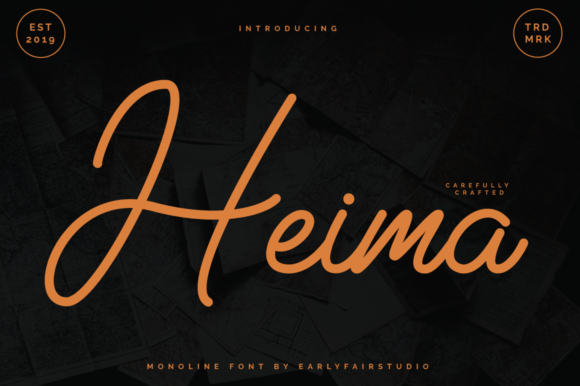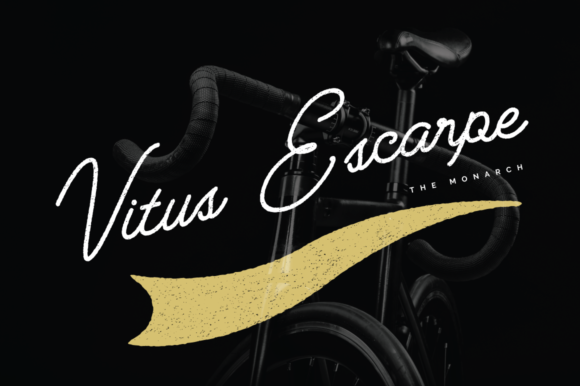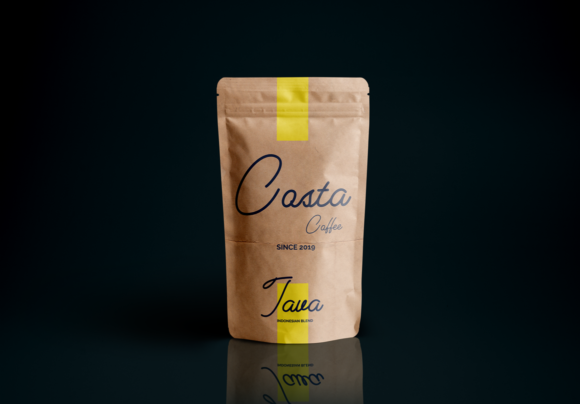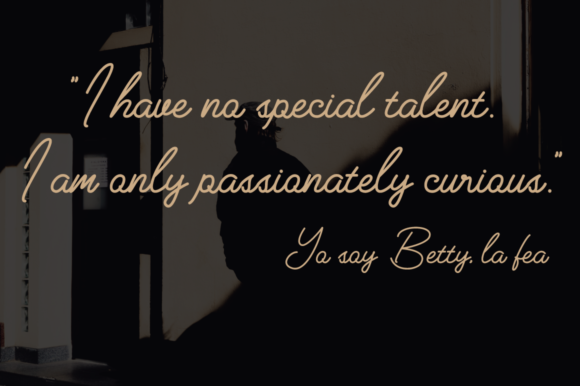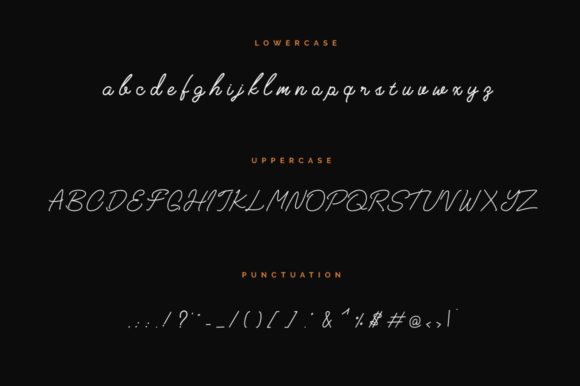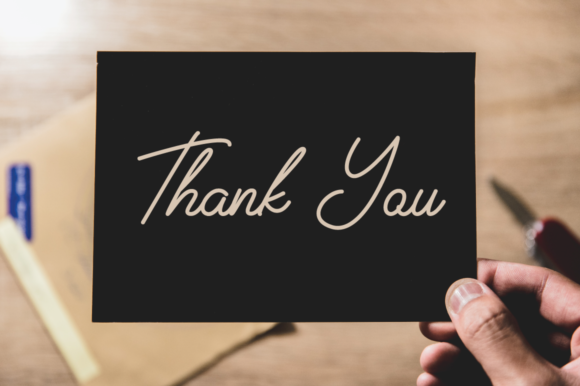
HomeScript FontsHeima Font Script Fonts Heima Font FacebookXPinterestWhatsApp Heima Font Poster 2 Heima Font Poster 3 Heima Font Poster 4 Heima Font Poster 5 Heima Font Poster 6 About Heima Font Heima is a sweet and simple handwritten font with a cool charm. Get inspired by its unique charm! DOWNLOAD ON CREATIVE FABRICAThis font is sold and delivered by Creative Fabrica. Font Canyon may earn a commission if you buy through this link. People also explored Texas Professional Font Sinandaka Font Fahrenheit Signature Font Nano Font Dreams Font Maple Crisp Font Jolly Yellows Font Sketchy Font Natural Beauty Font 339 0 TagsHeima Font Previous articleKalko FontNext articleRevantte Font LEAVE A REPLY Cancel reply Comment: Please enter your comment! Name:* Please enter your name here Email:* You have entered an incorrect email address! Please enter your email address here Website: Save my name, email, and website in this browser for the next time I comment. Personal Use Free Cheque Personal Use Free Read more about this font Vivacious Personal Use Free Read more about this font Wanita Cantik Personal Use Free Read more about this font BD Medled Personal Use Free Read more about this font BLOG Modern Sans-Serif Fonts That Brands Love in 2025 In 2025, modern sans-serif fonts remain a top choice for brands looking to project clarity, professionalism, and... Fonts That Capture the Spirit of New York City How to Install and Use Fonts on Windows, macOS, and Web Projects Free vs Paid Fonts: Why Investing in Premium Fonts Is Worth It